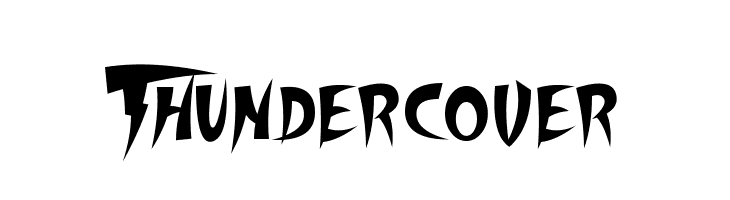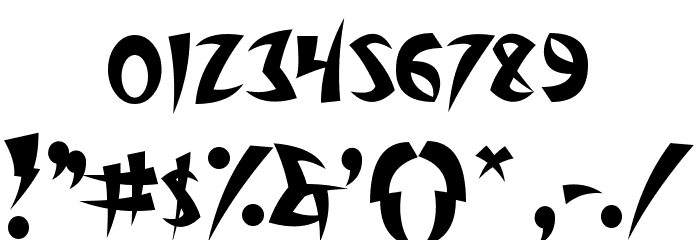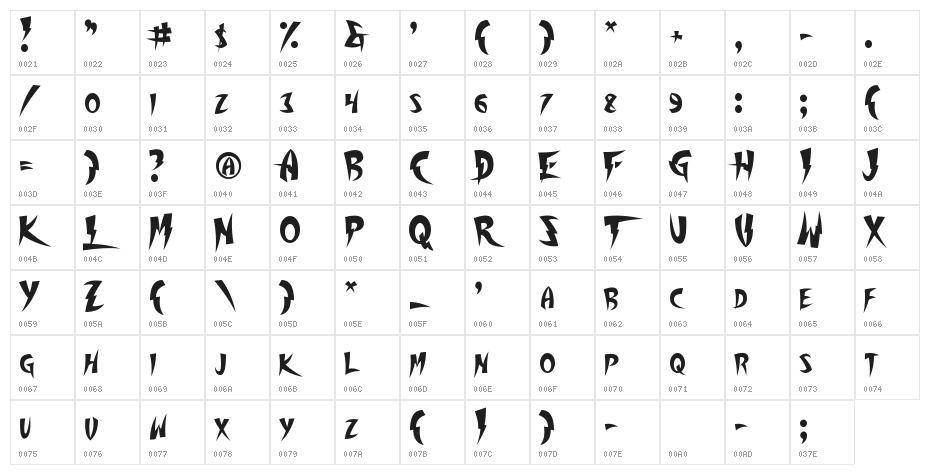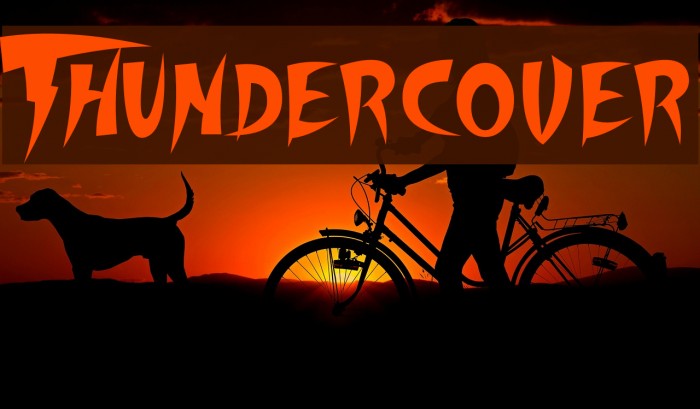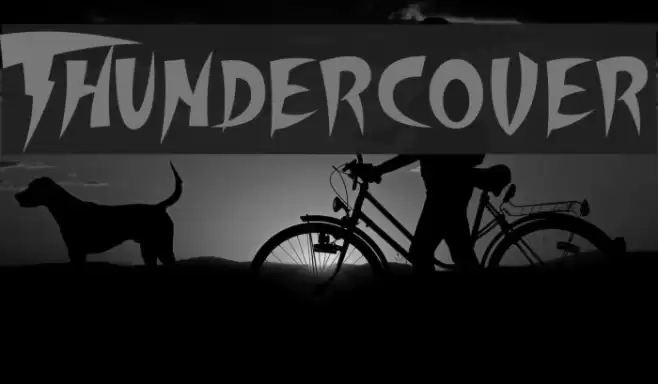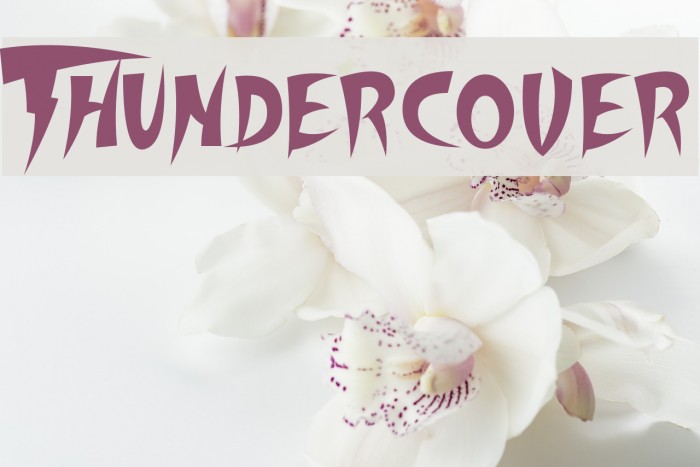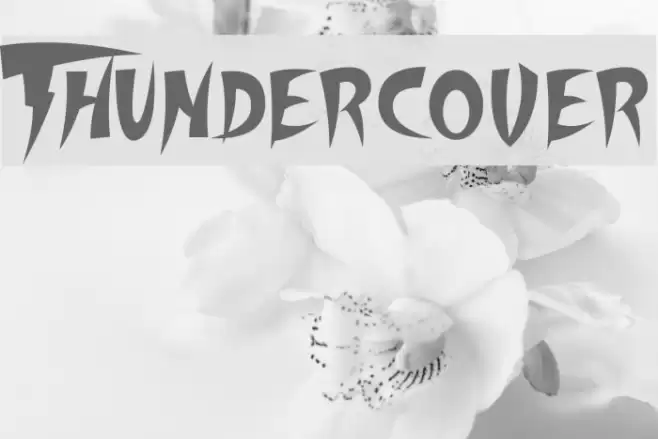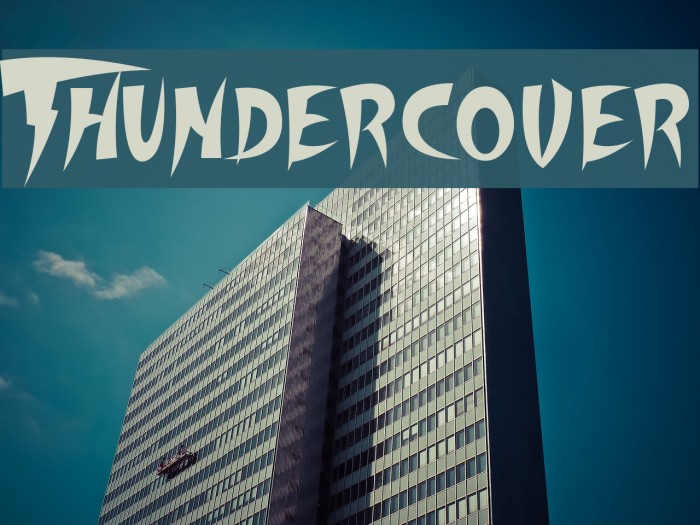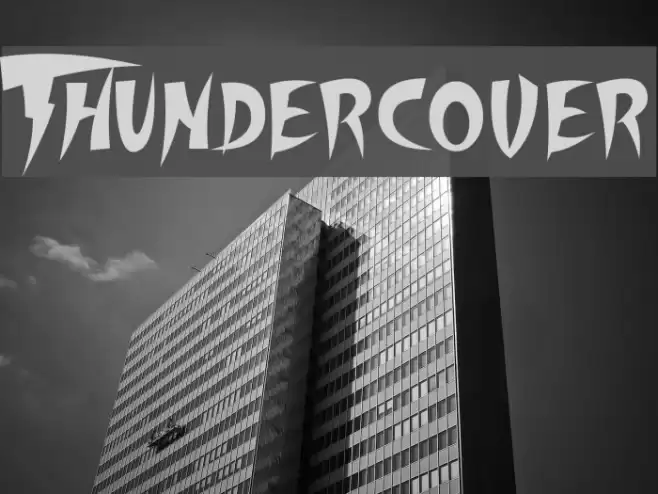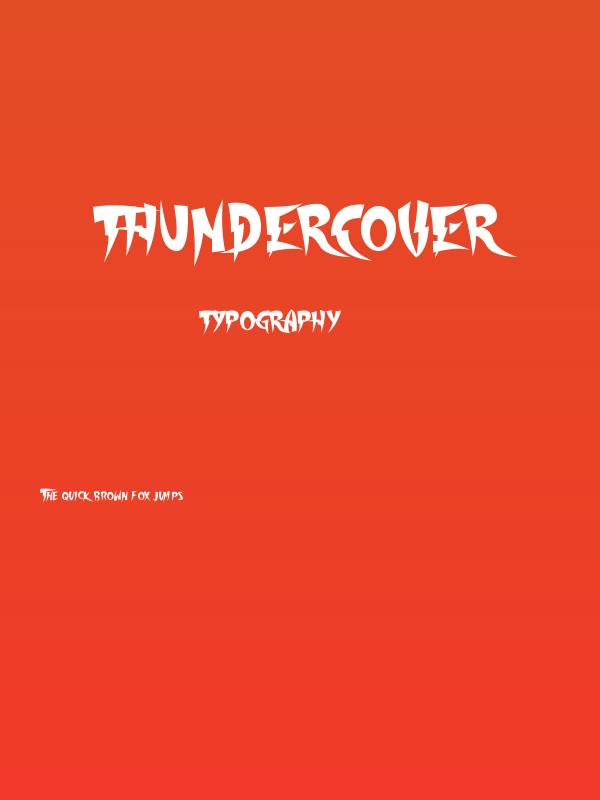
Thundercover Font
Thundercover Description
This font features a bold and dynamic style, characterized by sharp, angular lines and a sense of movement reminiscent of lightning bolts. The uppercase letters are particularly striking, with exaggerated serifs and pointed edges that create a sense of energy and intensity. The lowercase letters maintain this dynamic feel, though they are slightly more subdued, offering a balance between readability and style. The numbers and special characters follow the same design principles, ensuring consistency across all glyphs. This font is perfect for projects that require a strong visual impact and a modern, edgy aesthetic.
| Overall Style | Modern, Edgy |
| Proposed Projects | Ideal for music album covers, sports team logos, event posters, and any project needing a bold, energetic typeface. |